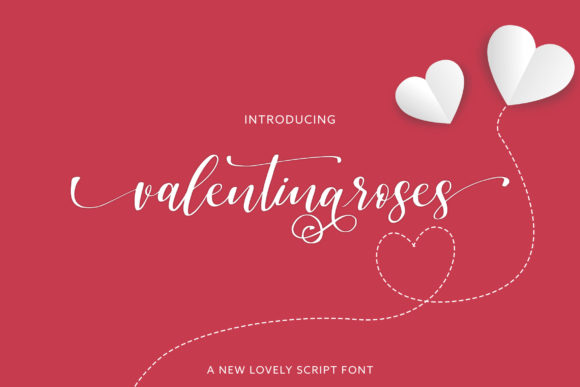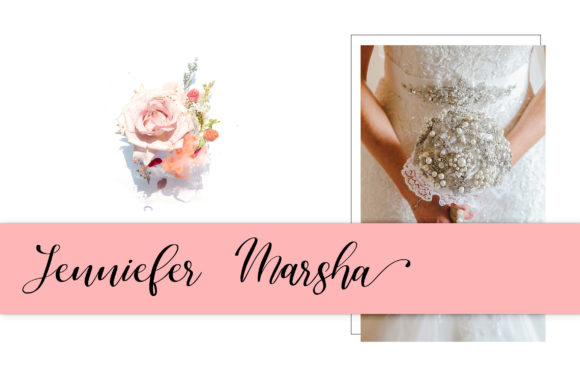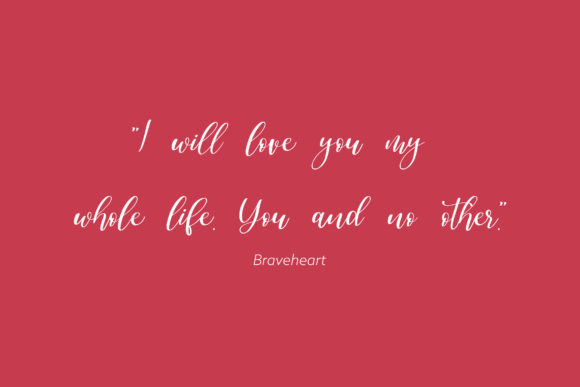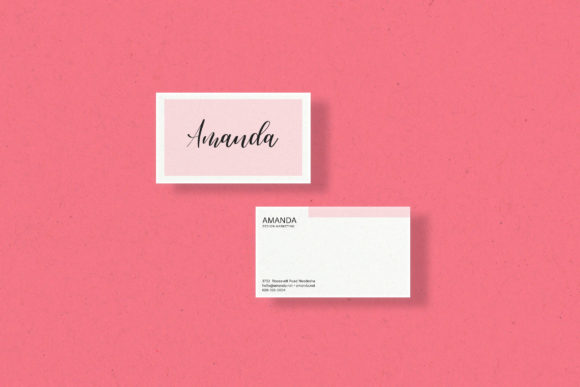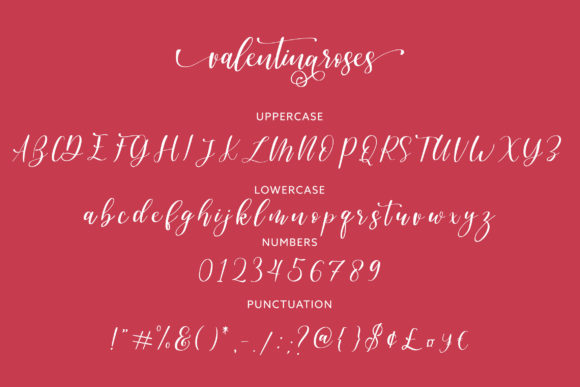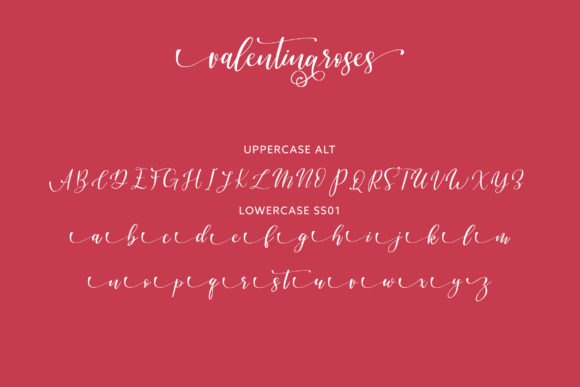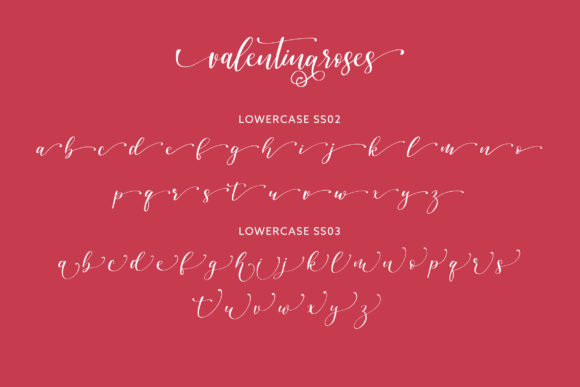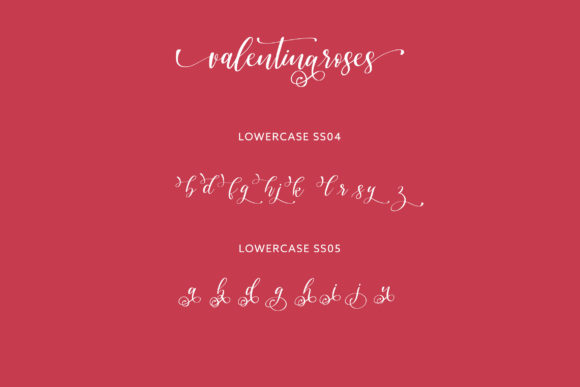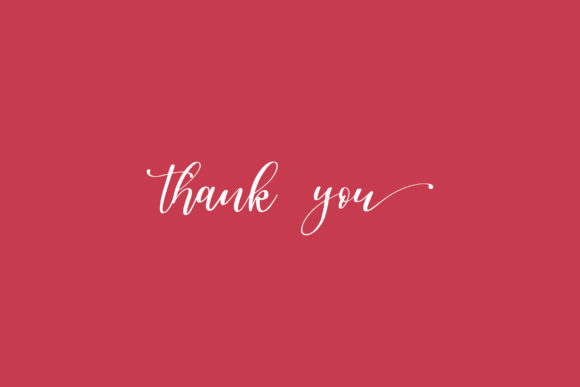
Valentinaroses Font
About Valentinaroses Font
Valentinaroses is a lovely script font that features flowing curves. It will add a romantic touch to any crafting project!